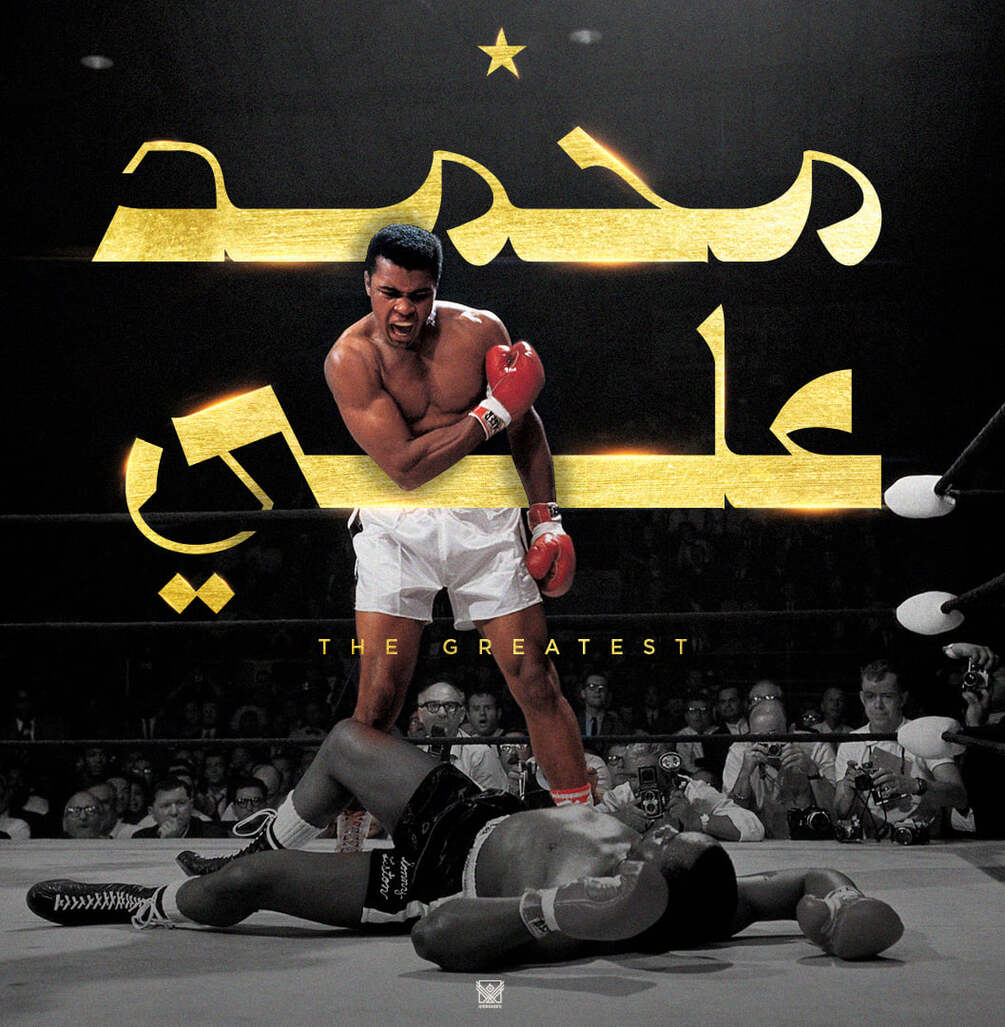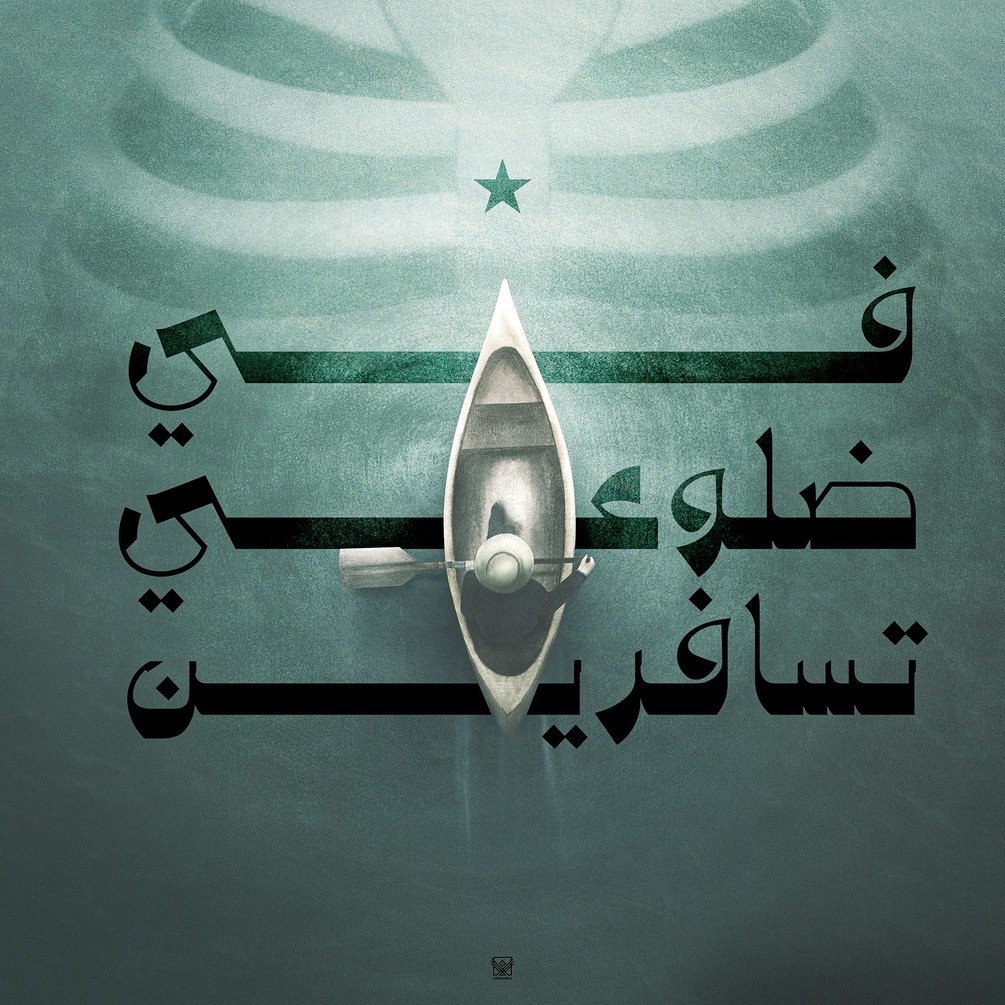
Momken Typeface
Momken typeface
Momken typeface is a display typeface designed as an experiment in a new typeface voice. Momken means possible, and the name comes from our humble belief in ourselves and our flexible language to fit a new style. The project began with many pieces of Arabic lettering as experimentation for posters, and then it was developed as a font.
Arabic typeface
OpenType Features
Required Ligatures.